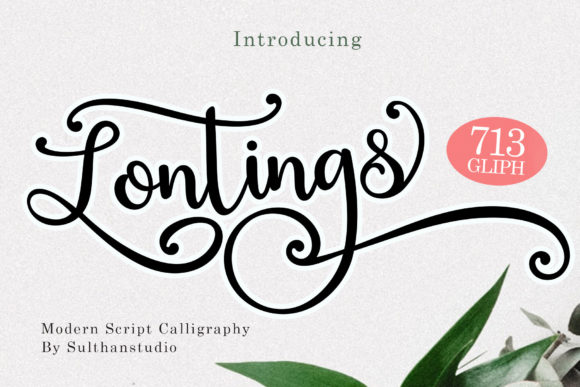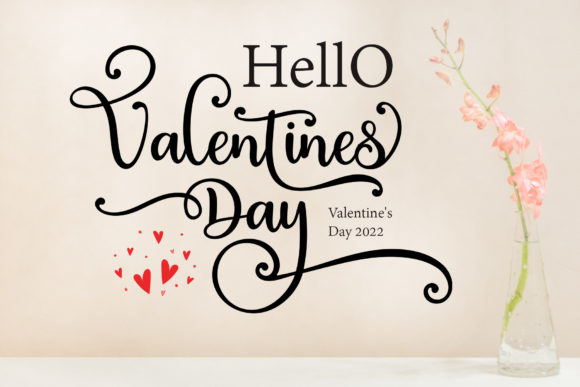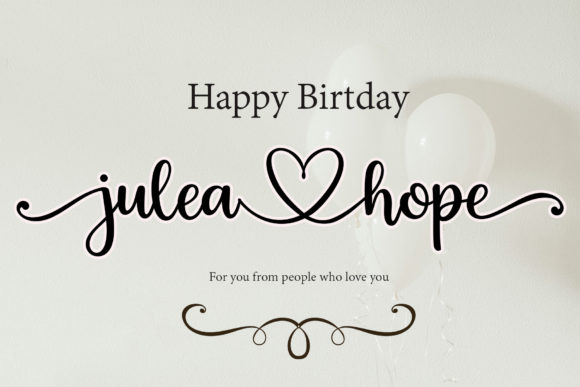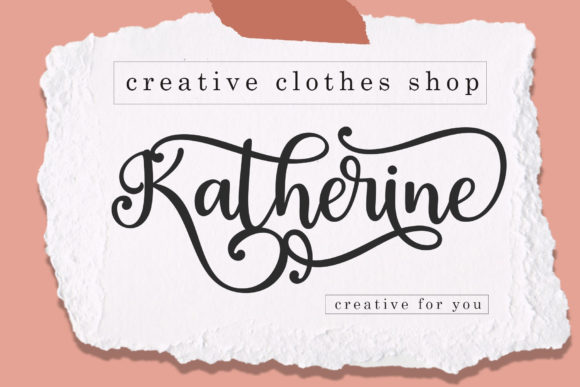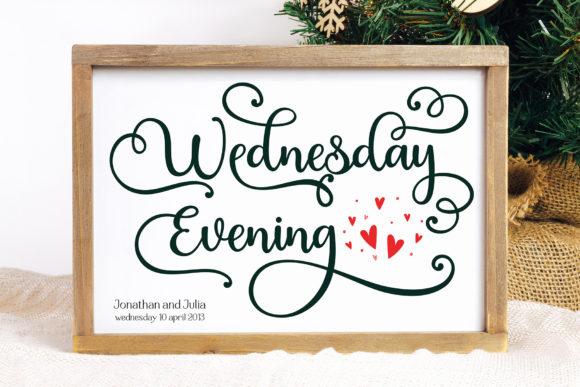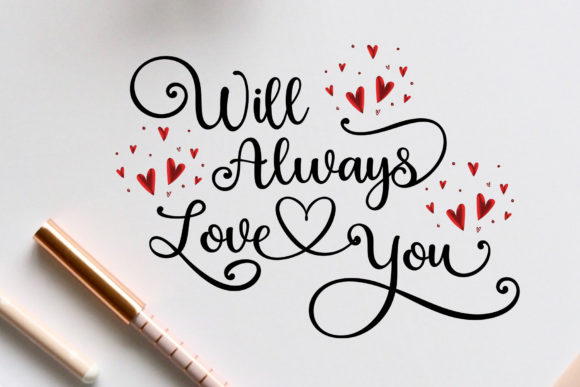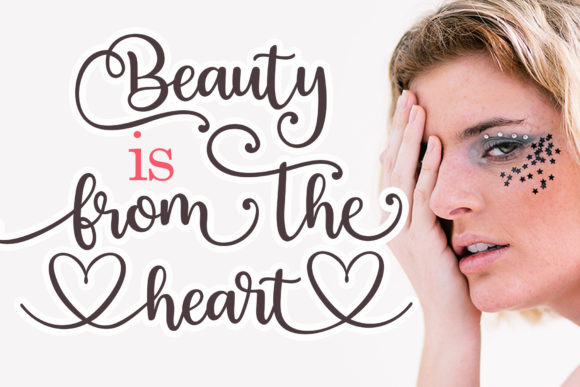
Lontings Script Font
“Lontings Script” is a captivating and airy handwritten font that exudes a distinctive charm and leaves a remarkable impression on your design projects. With its unique character and elegant appearance, this font has the power to infuse a touch of luxury into any creative endeavor you undertake.
The font’s delicate strokes and graceful letterforms contribute to its light and ethereal quality. This makes it an excellent choice for projects where you aim to create a sense of sophistication and refinement. Whether you’re working on branding materials, invitations, posters, or other design materials, “Lontings Script” can provide the perfect balance of style and impact.
The inclusion of PUA encoding is a valuable feature that empowers you to access the extensive collection of glyphs and ligatures effortlessly. This means you can explore various character variations and ligature combinations to achieve a customized and visually appealing typography that aligns with your design vision.
The luxurious spark that “Lontings Script” adds to your projects is particularly noteworthy. Its unique feel sets it apart from more conventional fonts, making it an ideal choice when you want to create a design that stands out and grabs attention. Its elegant presence can elevate your work and contribute to a sense of exclusivity and elegance.
Due to its light and graceful nature, “Lontings Script” has a versatility that lends itself well to a variety of design contexts. It can seamlessly adapt to different themes and aesthetics, making it a versatile asset for your creative projects. Whether your design requires a touch of romance, elegance, or modernity, this font can accommodate your needs.
In summary, “Lontings Script” is a beautiful and light handwritten font that possesses a unique charm and an impressive impact. With its luxury spark and PUA encoding, it offers a rich selection of glyphs and ligatures that you can easily incorporate into your designs. Whether you’re aiming for elegance, sophistication, or a unique feel, “Lontings Script” can help you achieve your design goals and leave a lasting impression on your audience.